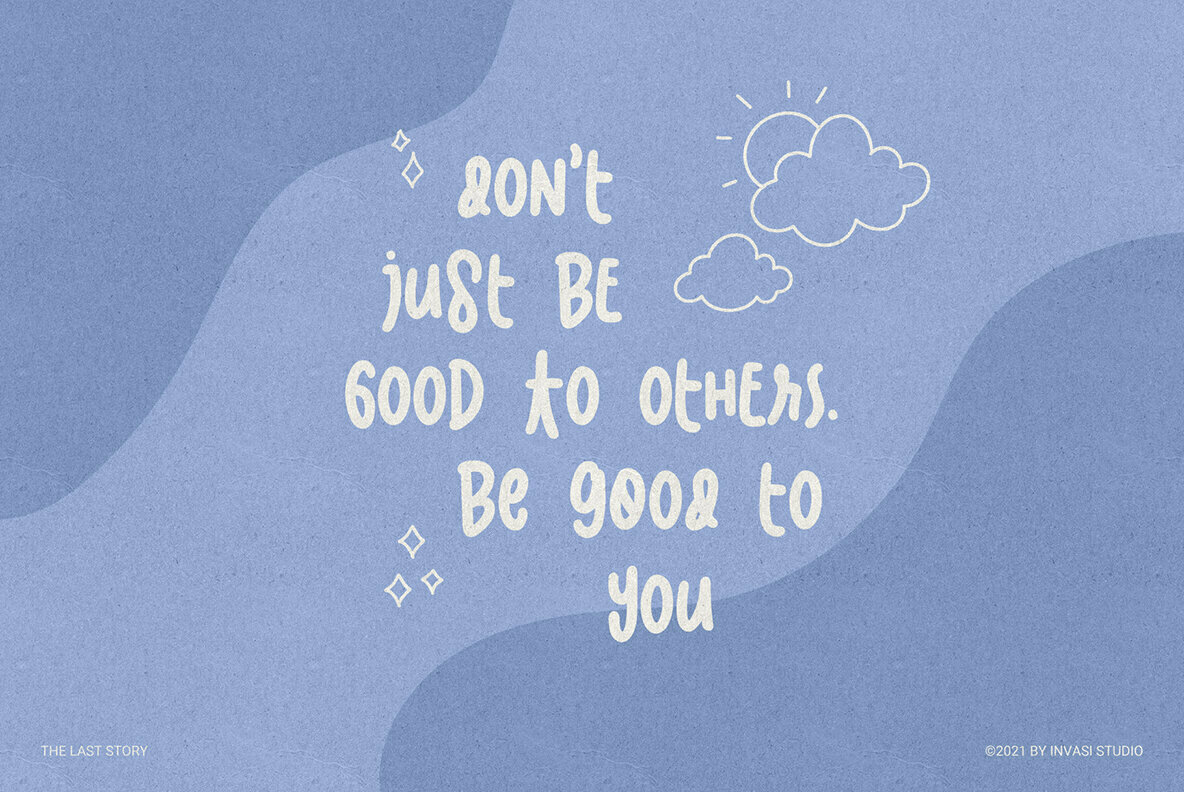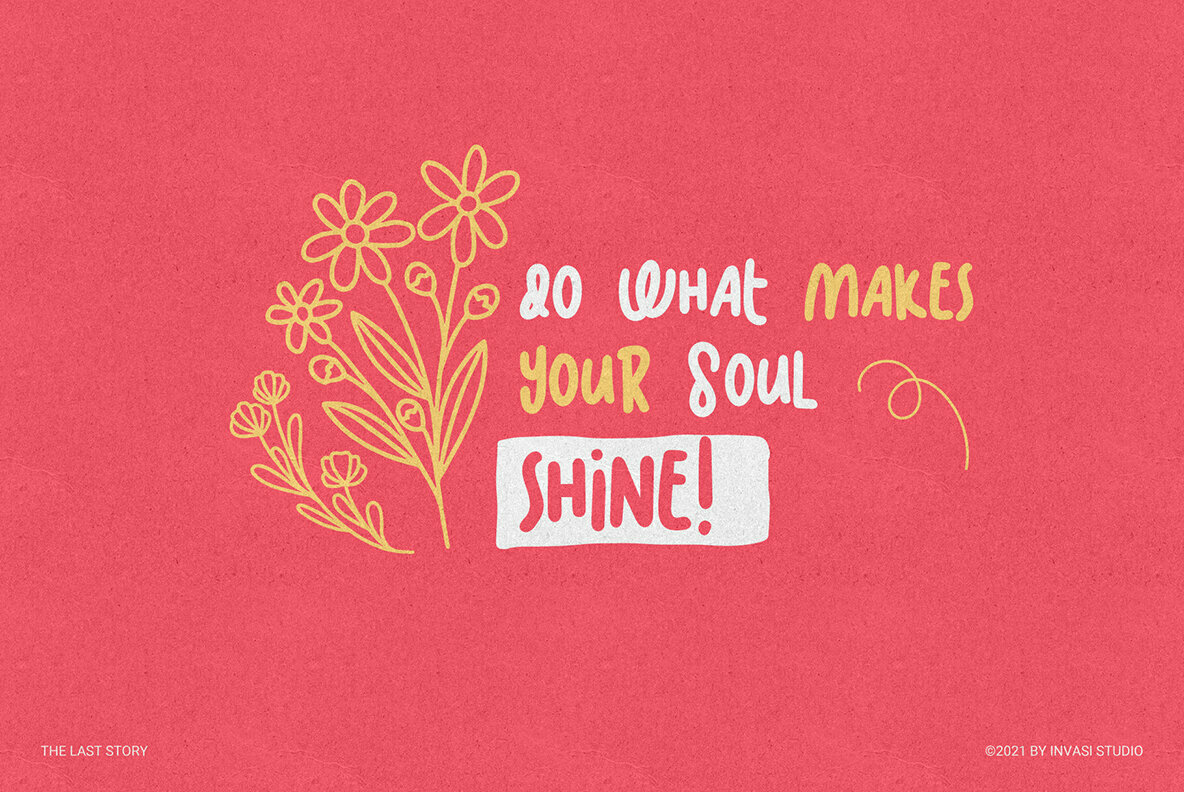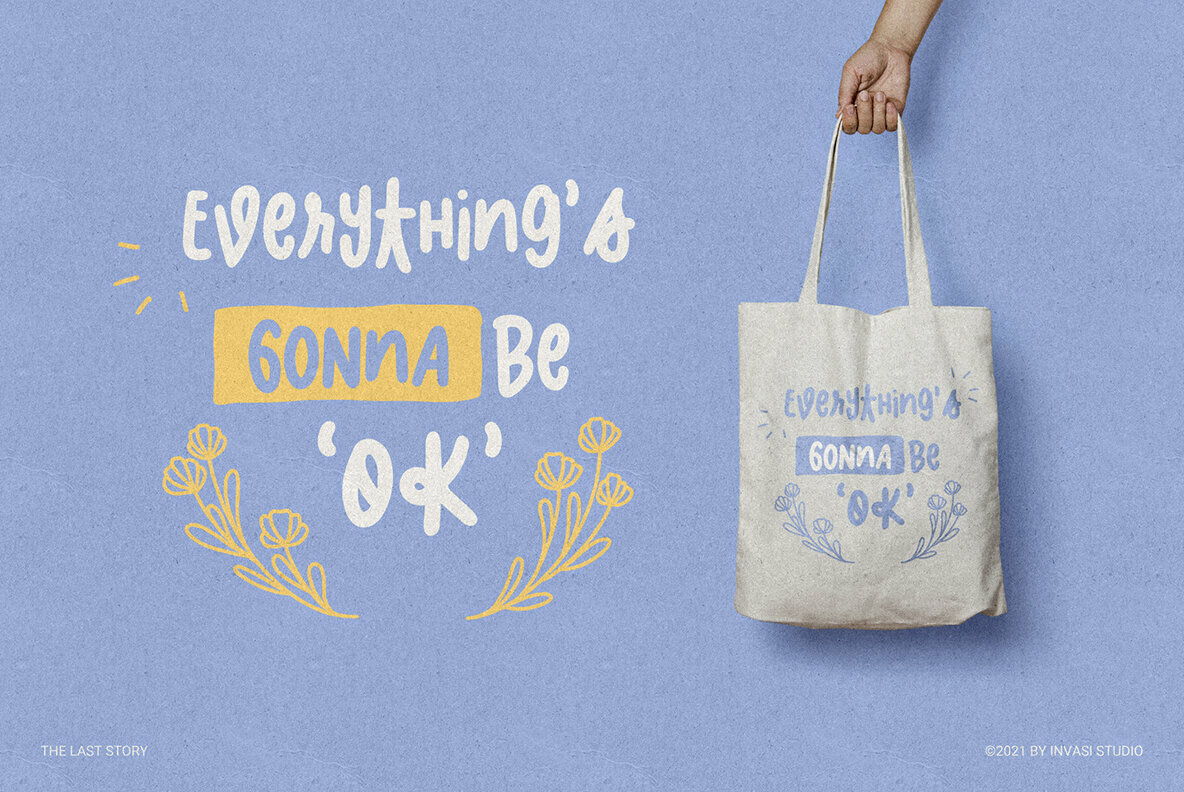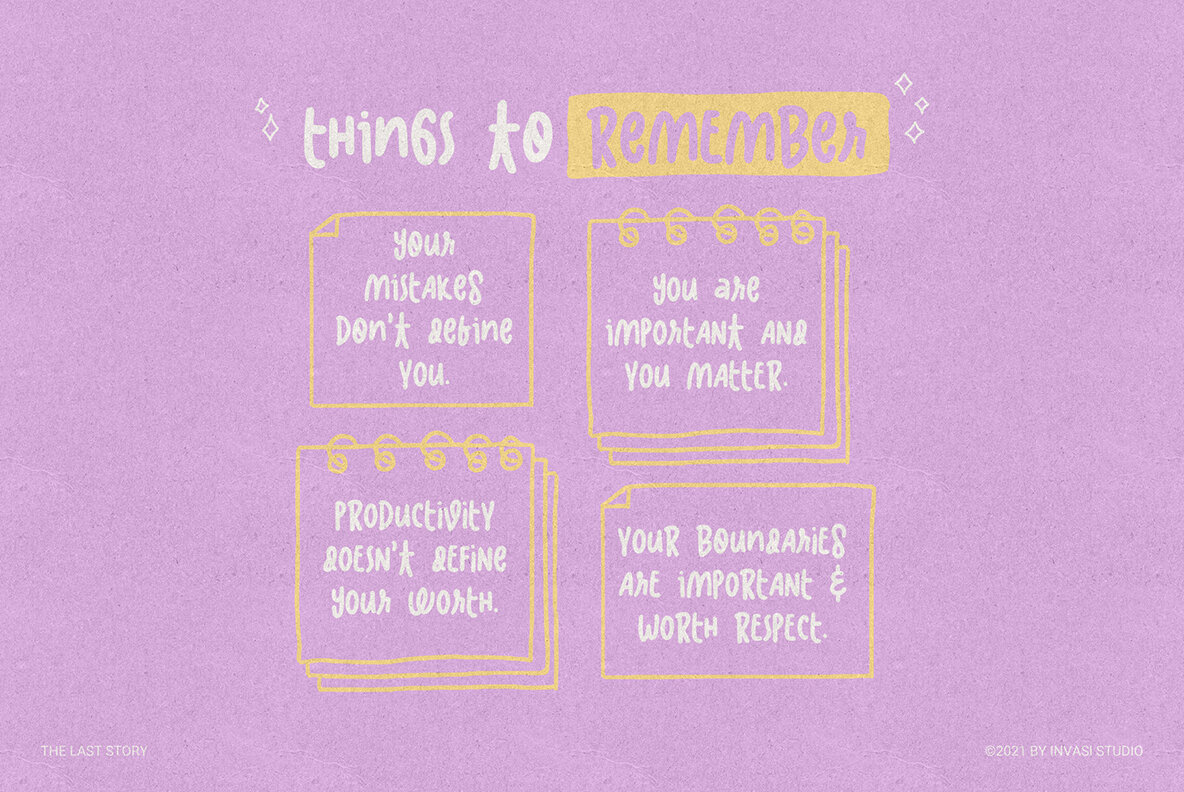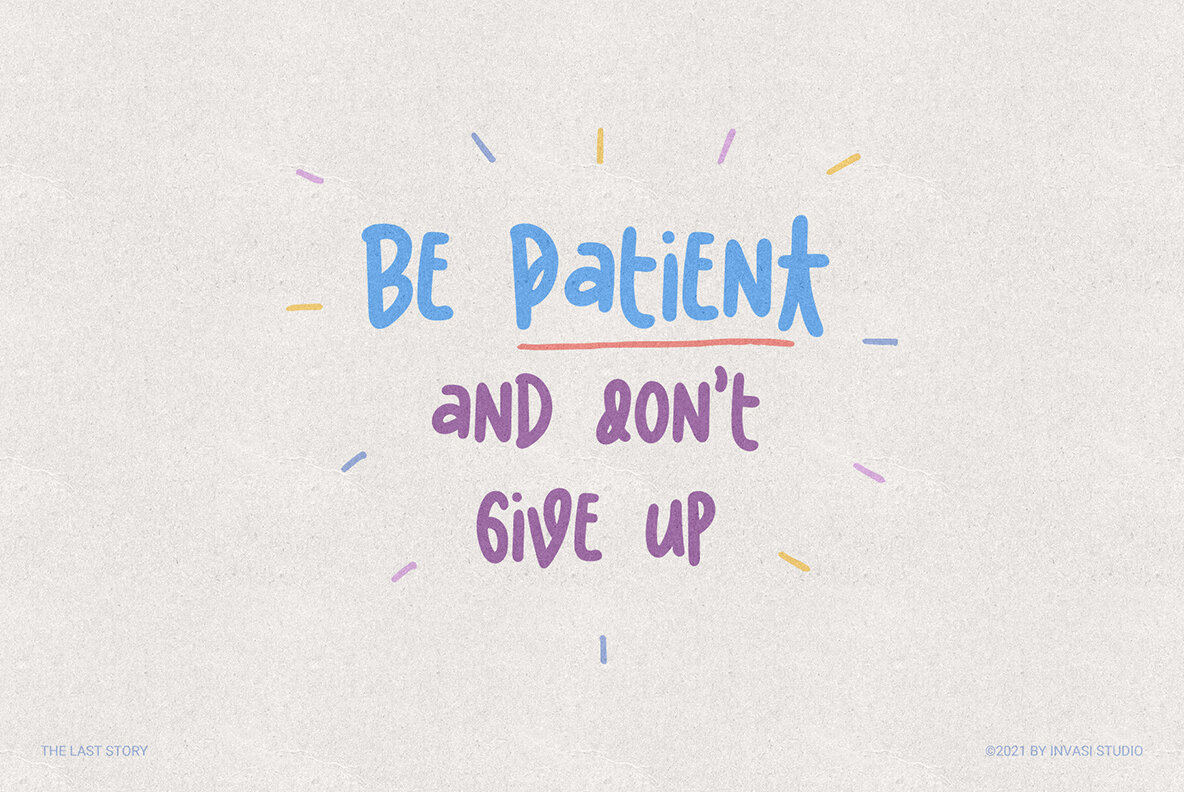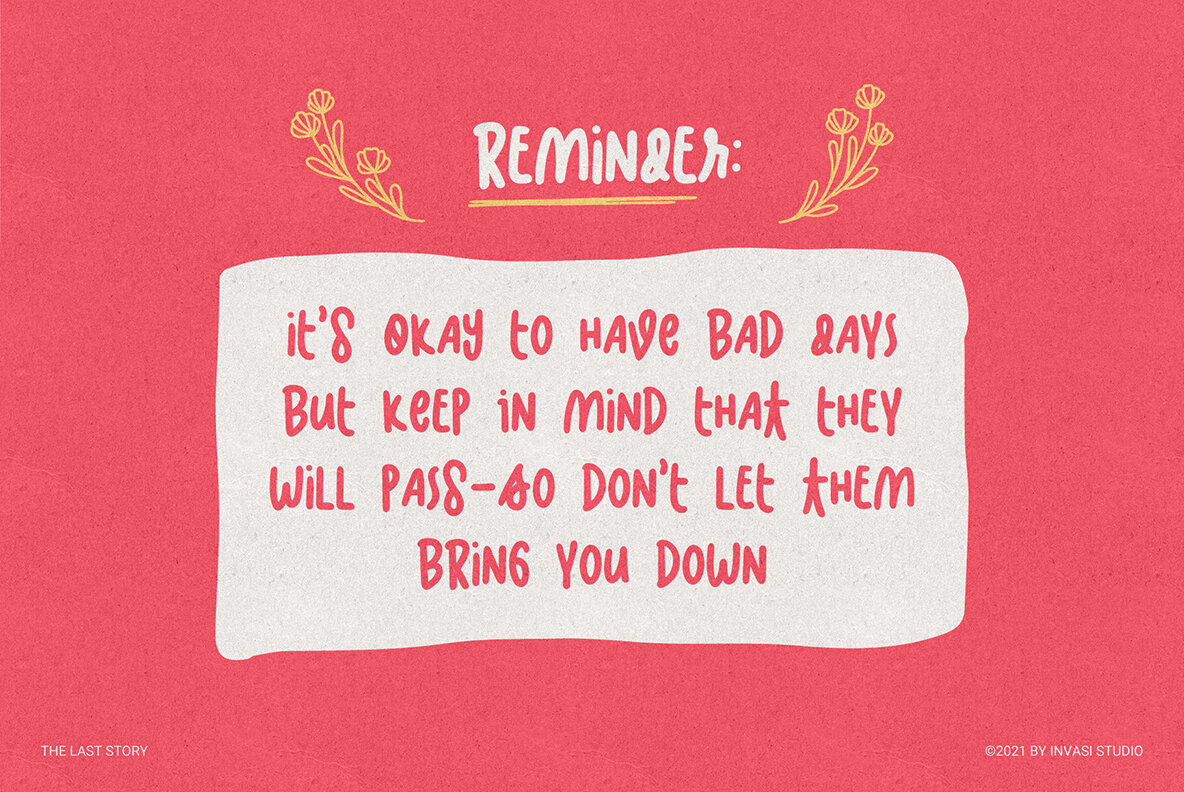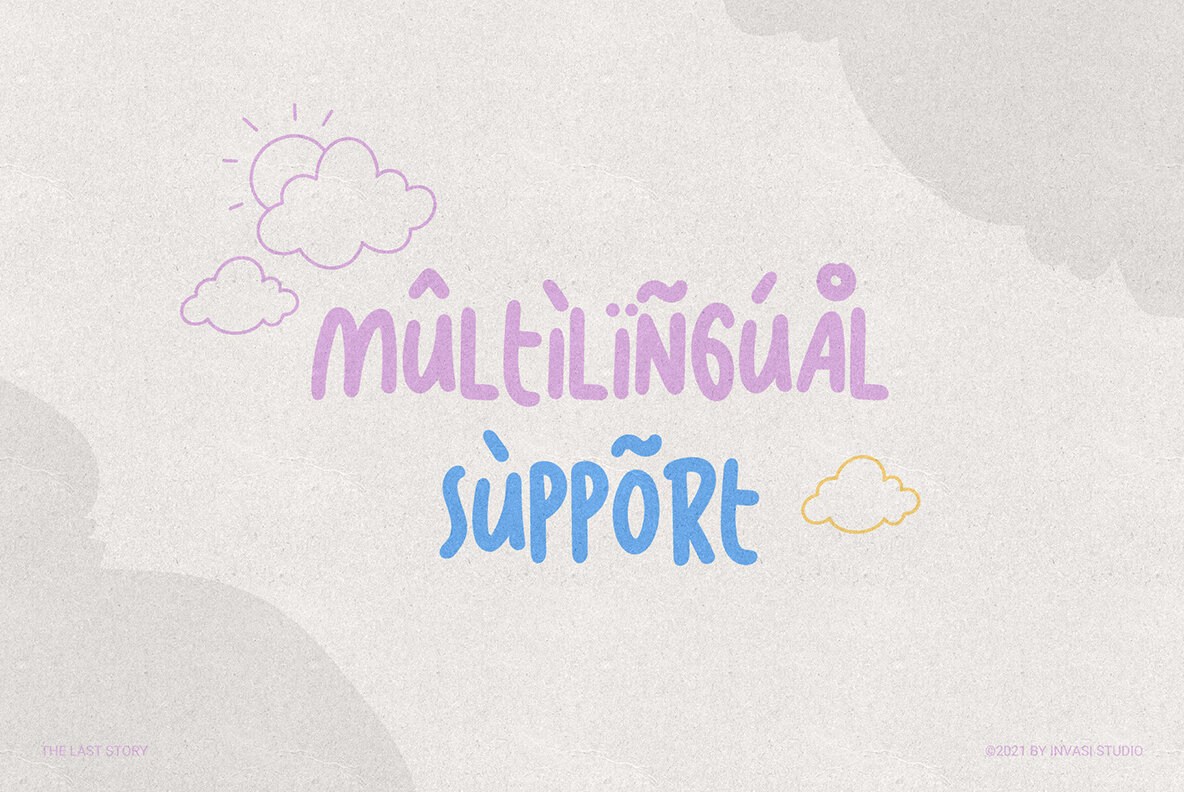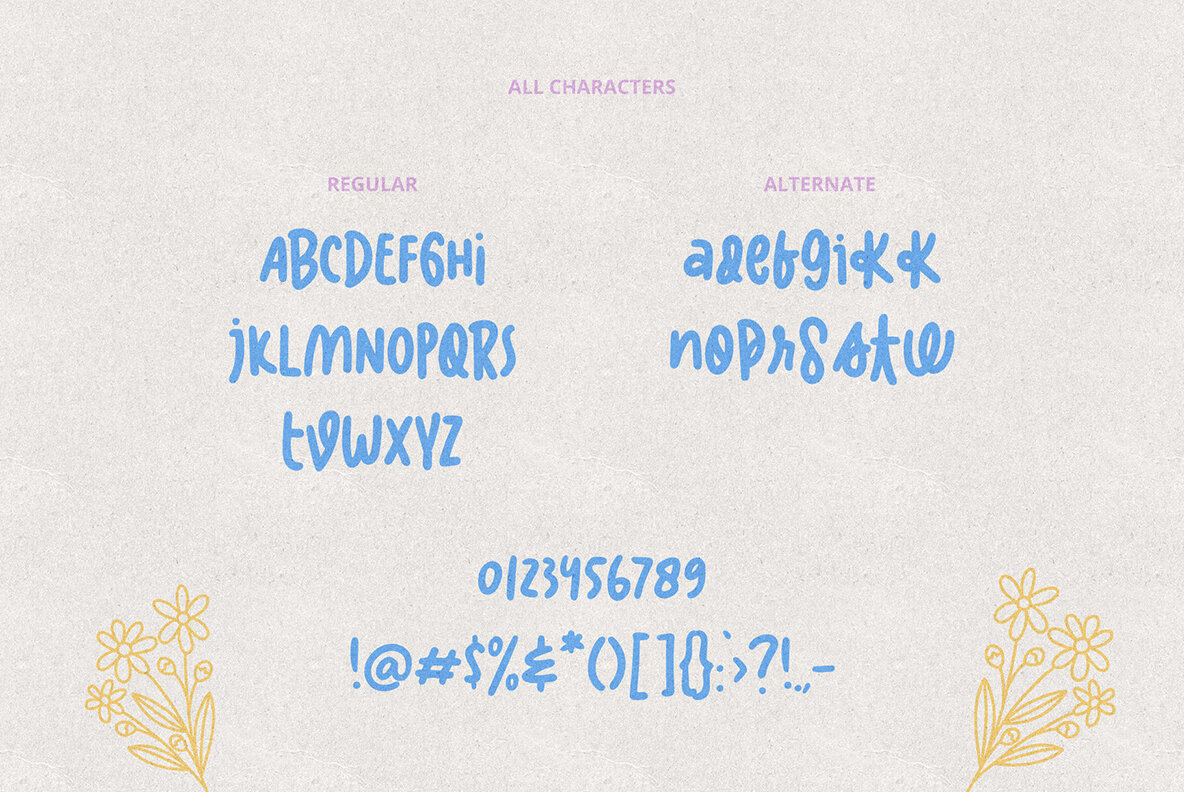
The Last Story Font
The Last Story
The Last Story, an innovative font from Invasi Studio, merges the charming essence of handwritten styles with the boldness of an all-caps design. This harmonious fusion results in a visually appealing typeface that stands out across various mediums.The Last Story: Handwritten All-Caps Elegance